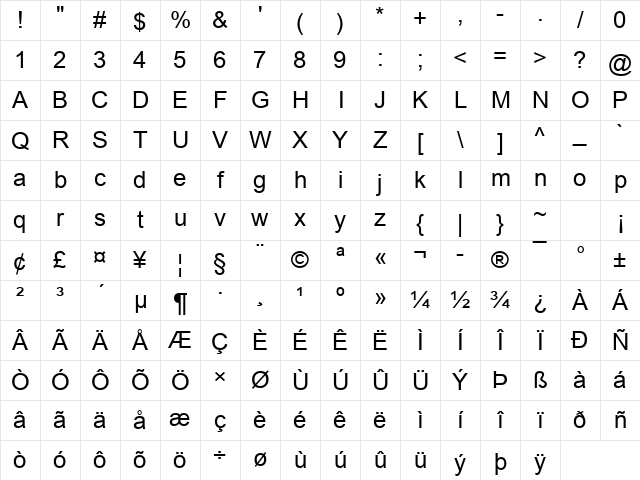
ARDS1 Regular
Design Context for ARDS1
ARDS1 is a composed and adaptable typeface that performs quietly and consistently across a wide range of design contexts.